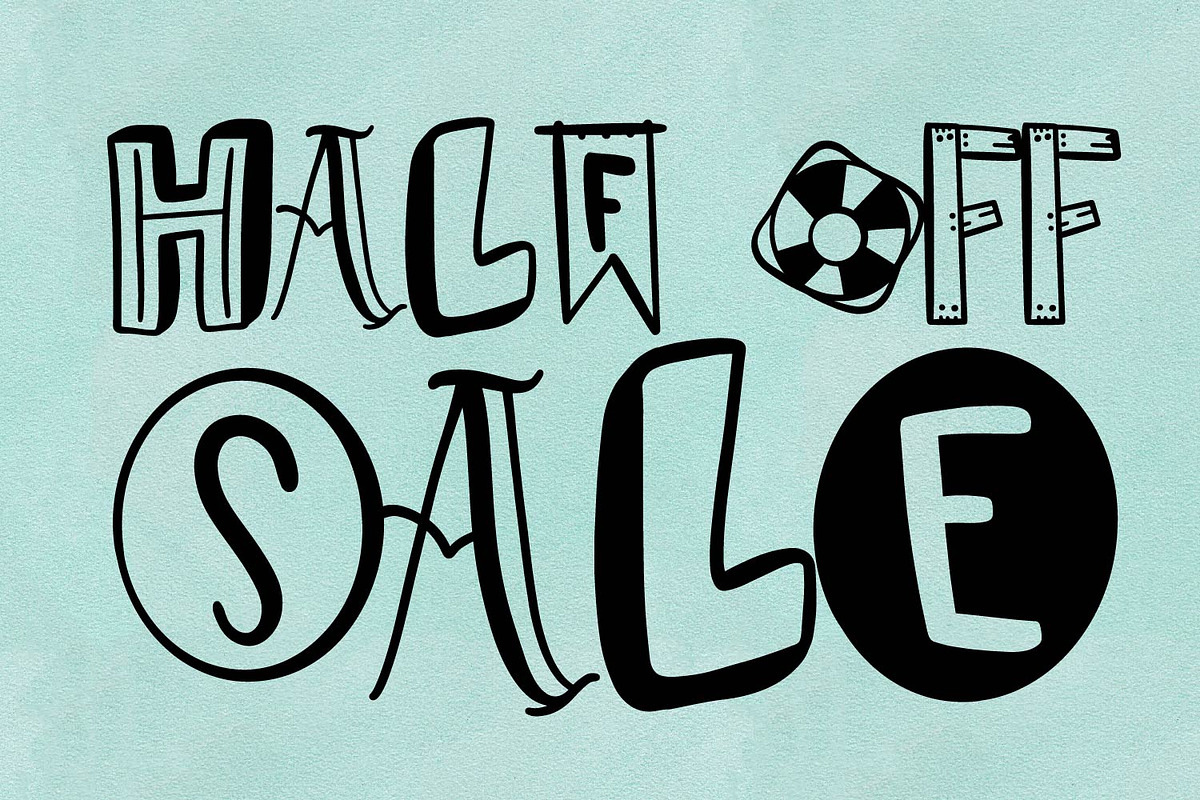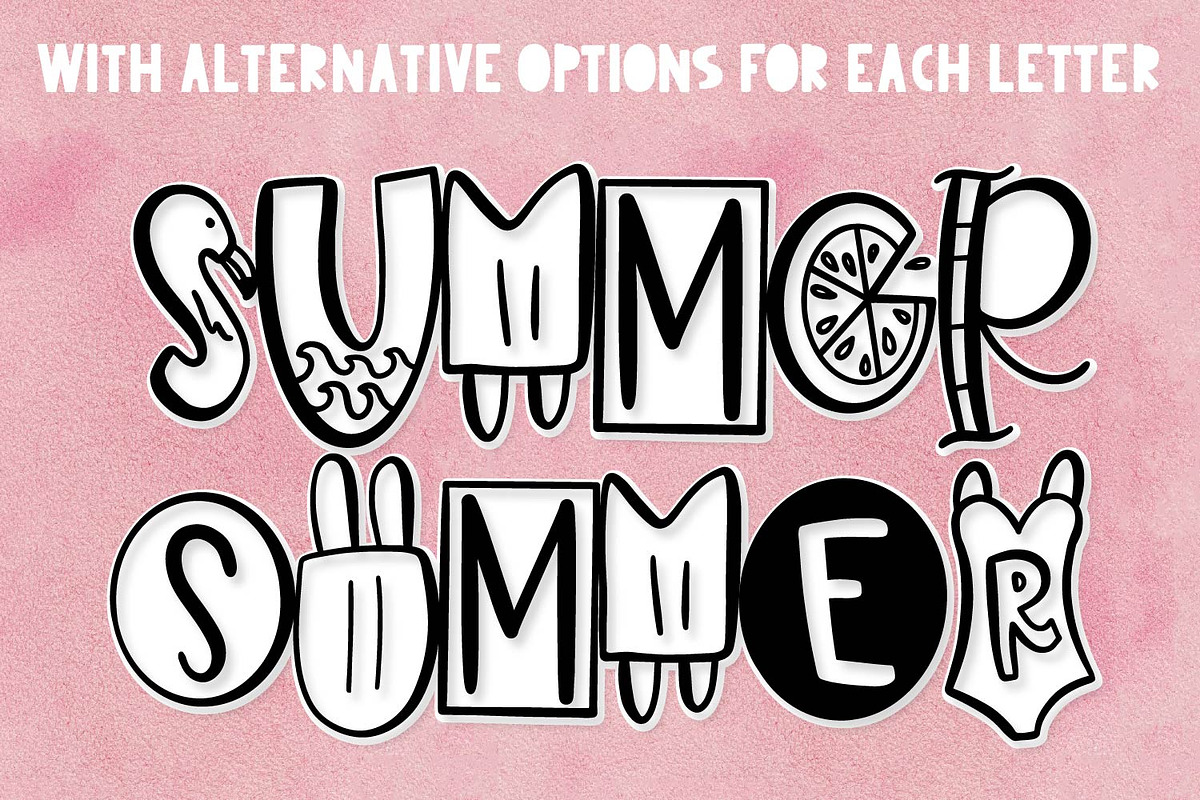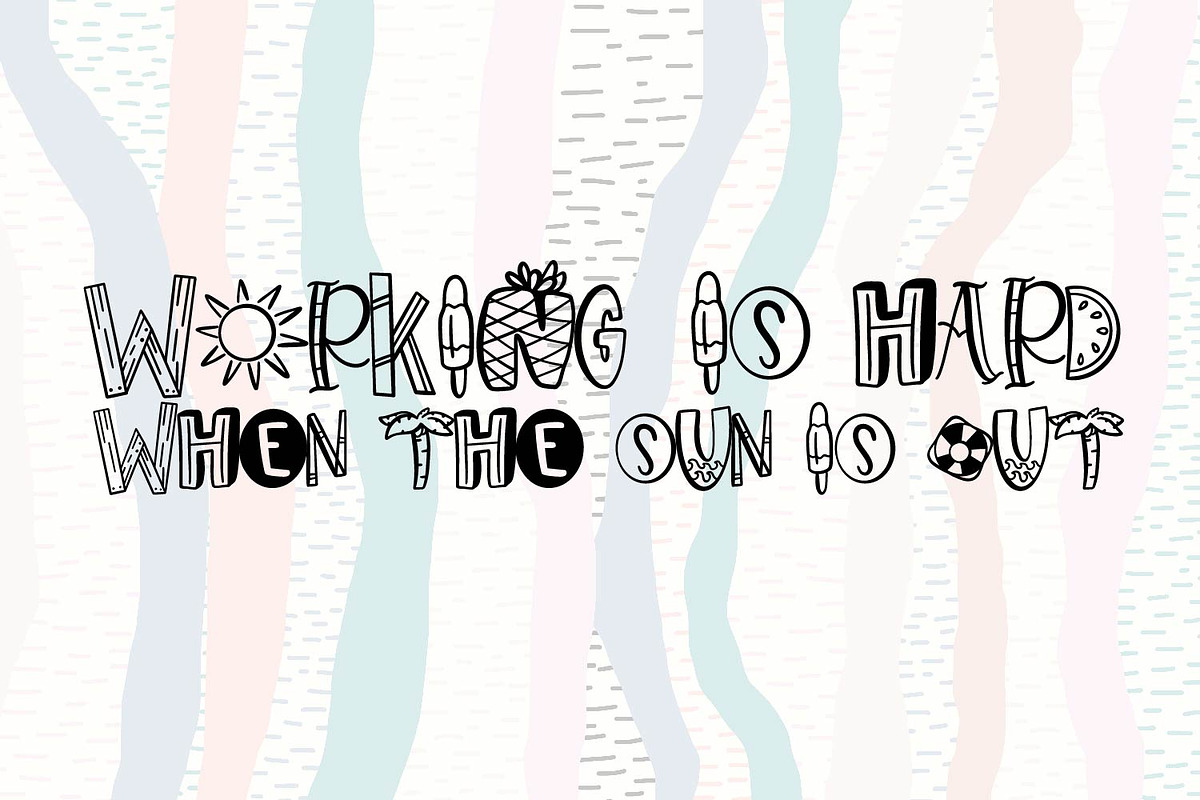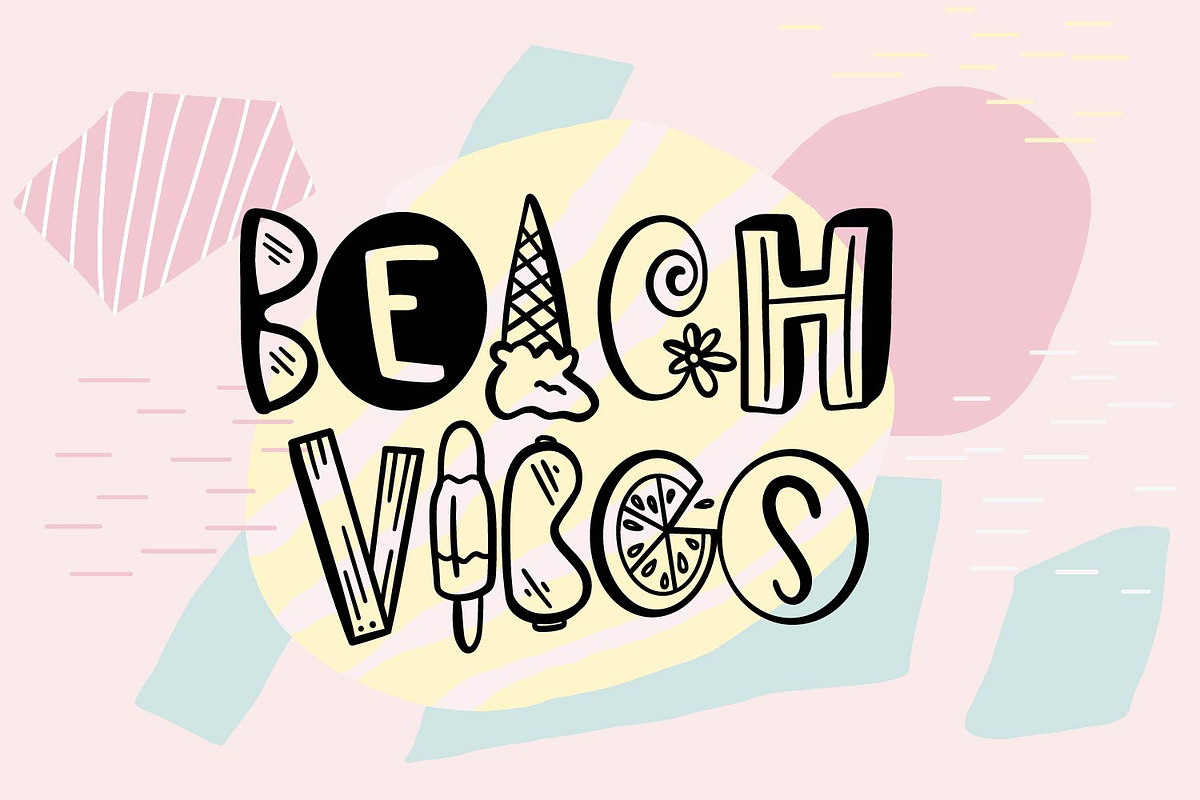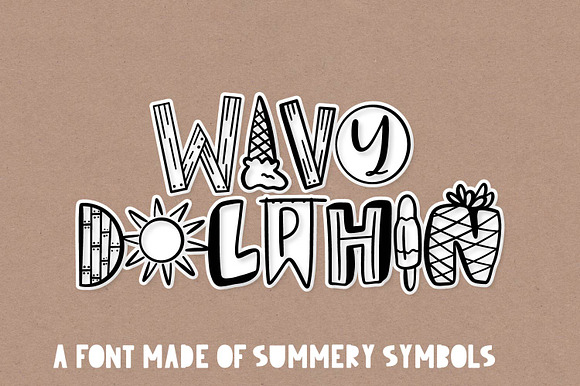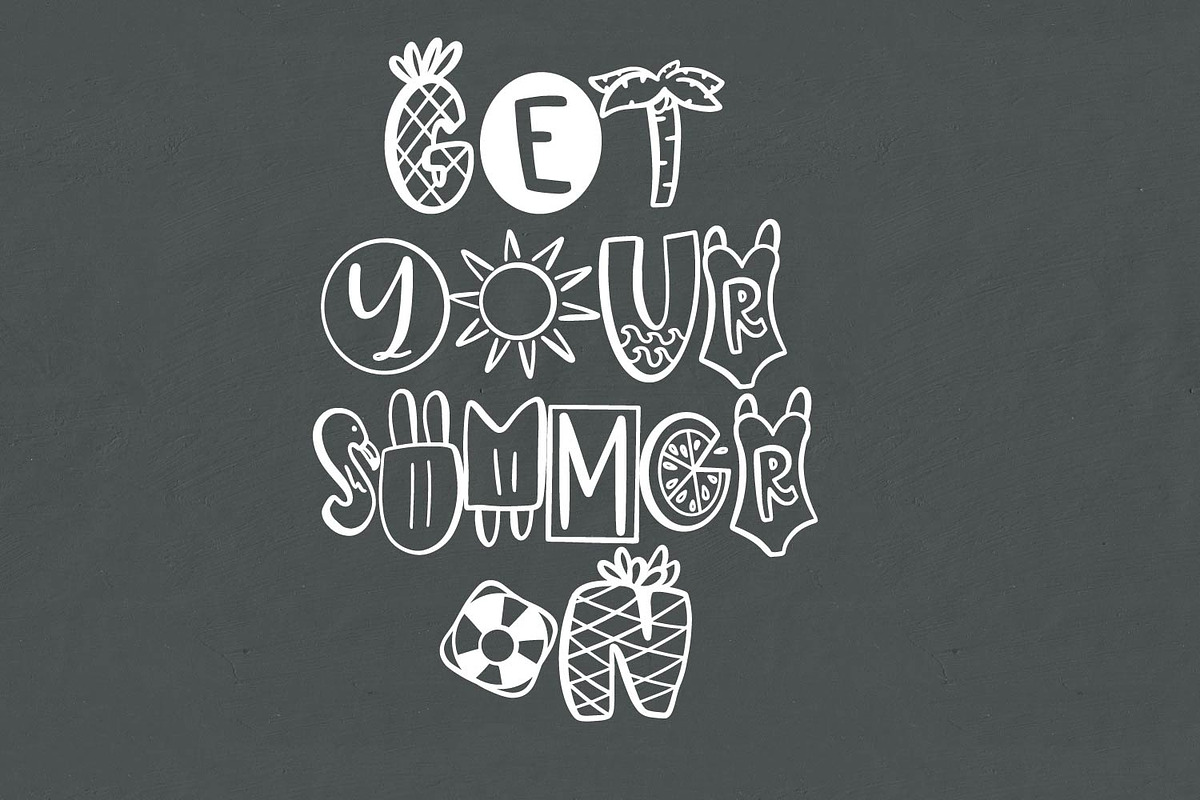
Wavy Dolphin - A Symbol Summer Font
Wavy Dolphin A Symbol Summer Font by CraftyLittleNodes is a font selected for branding, posters, packaging, typography.
Why Wavy Dolphin - A Symbol Summer Font is worth a look
Wavy Dolphin - A Symbol Summer Font by CraftyLittleNodes fits naturally into Branding, posters, packaging, typography.